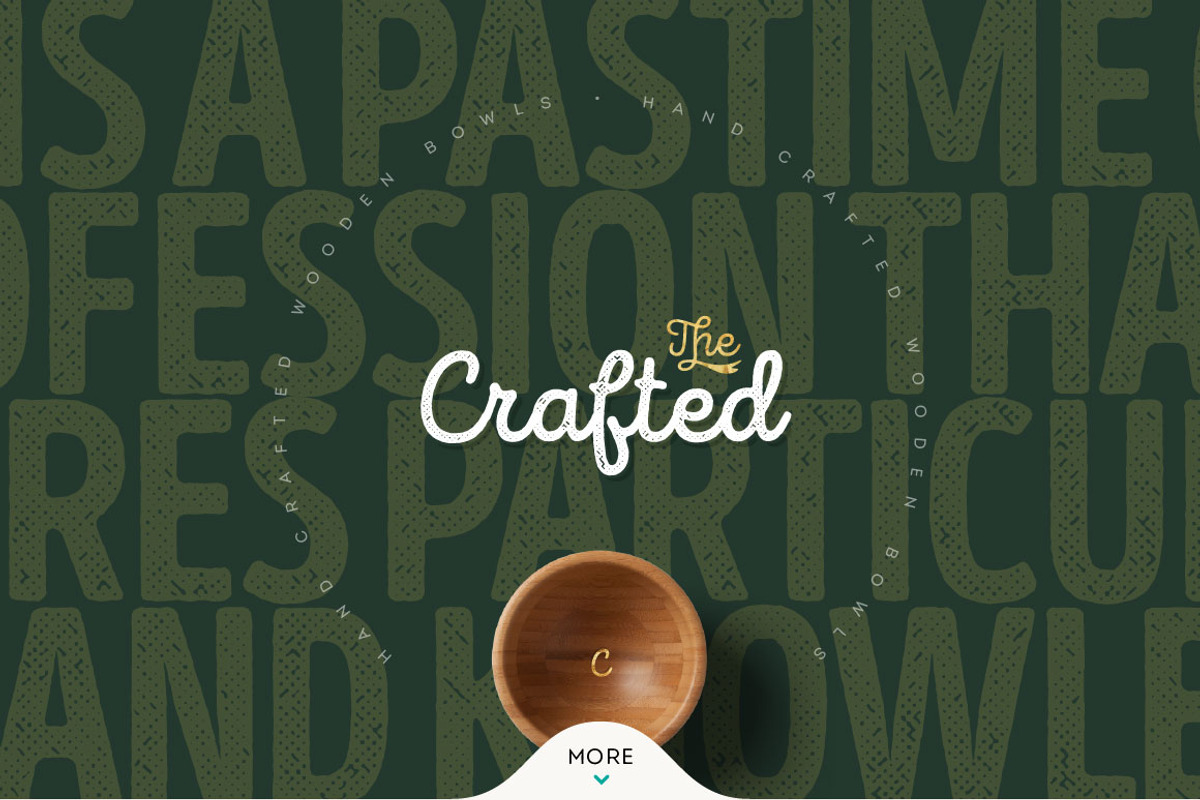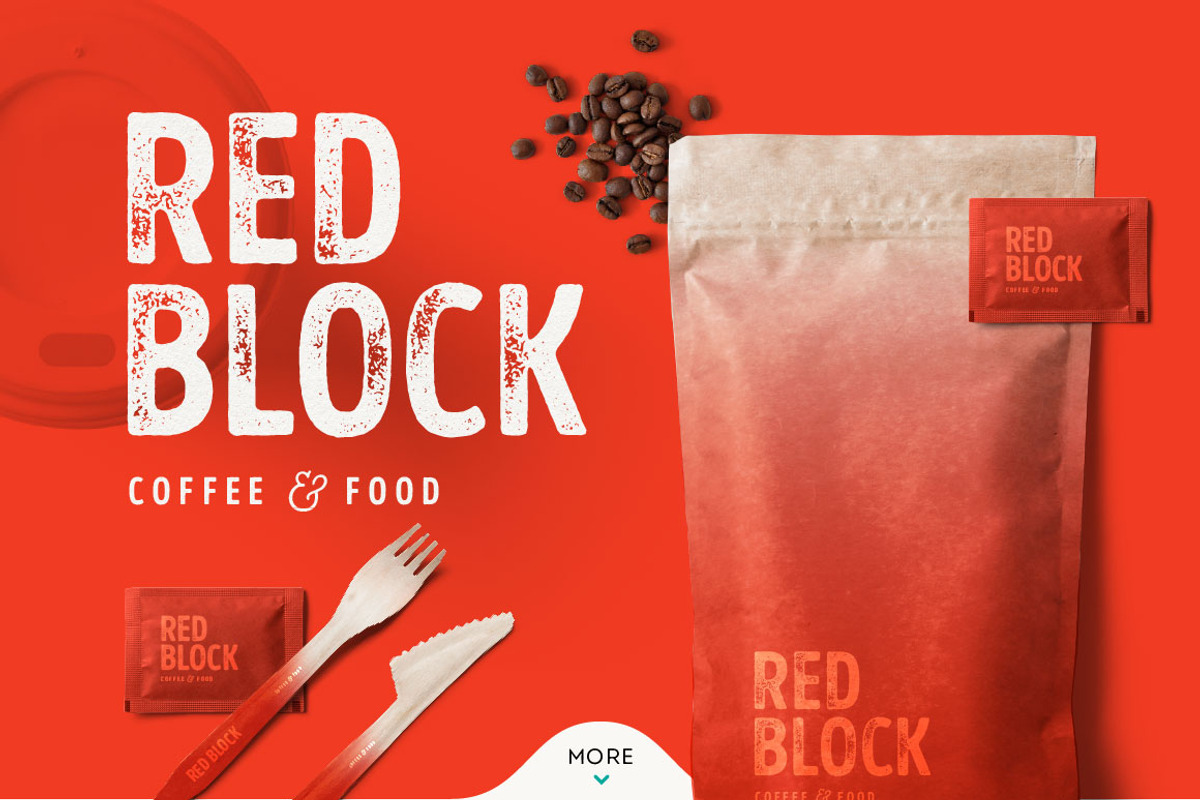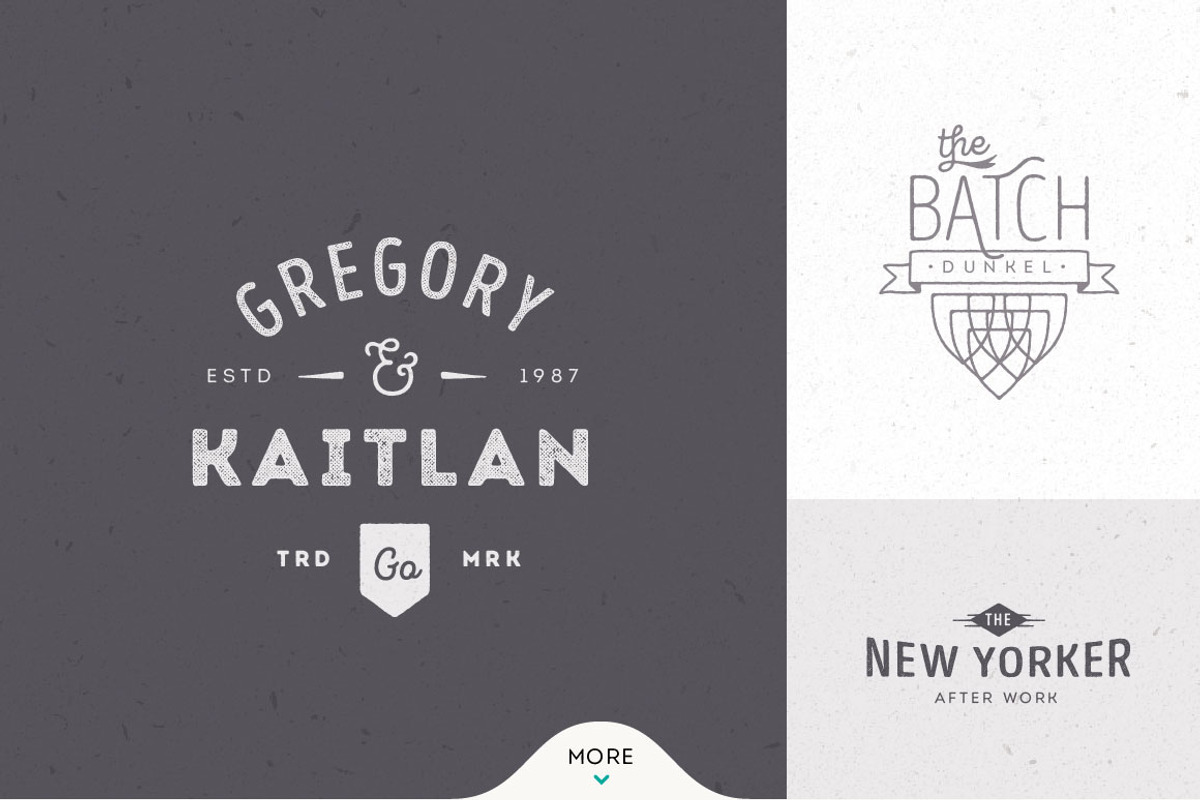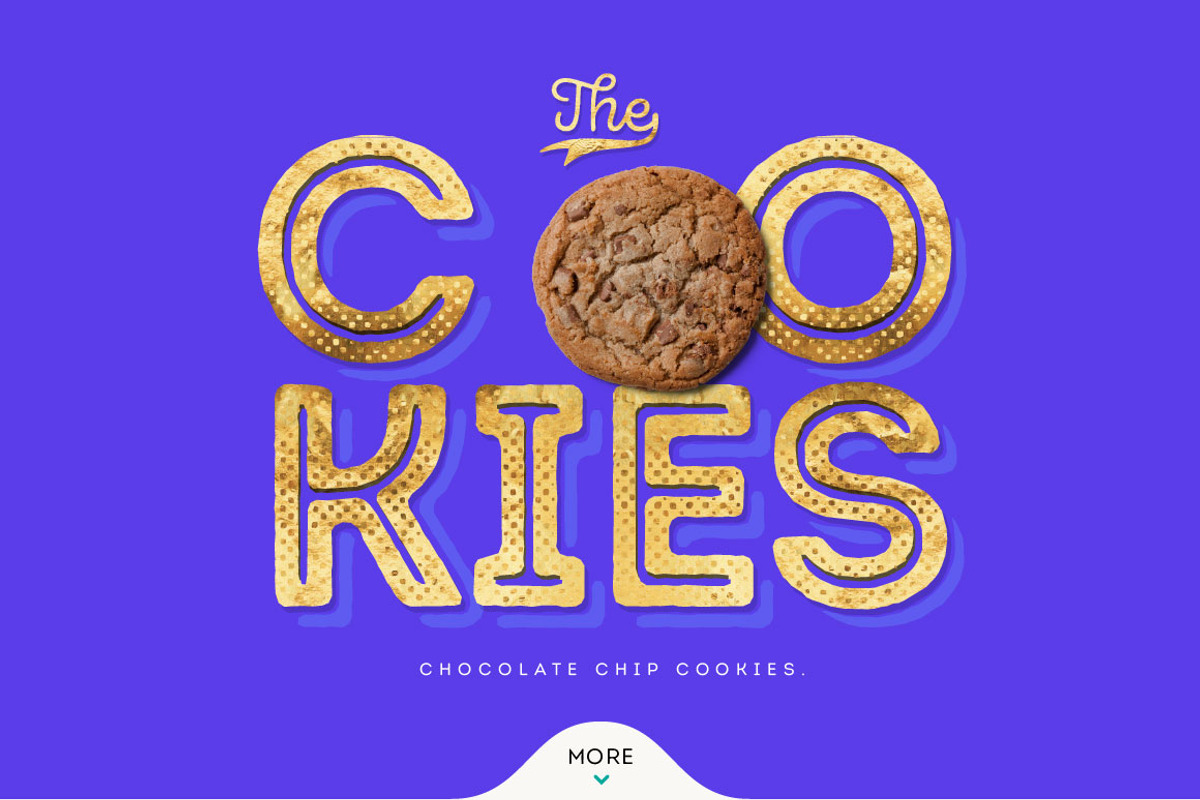
Intro Rust - pack of 214 fonts
Intro Rust - pack of 214 fonts by Fontfabric is a font selected for branding, posters, packaging, typography.
- Intro Rust is one of the biggest packages on the market, including 214 fonts.
- The font family is a rough version of the famous Intro and includes 4 sub-families – Intro Rust, Intro Script, Intro Head and Intro Goodies.
- You want to make a greeting card, a package design, or even a brand identity?
Why Intro Rust - pack of 214 fonts is worth a look
Intro Rust - pack of 214 fonts by Fontfabric fits naturally into Branding, posters, packaging, typography.